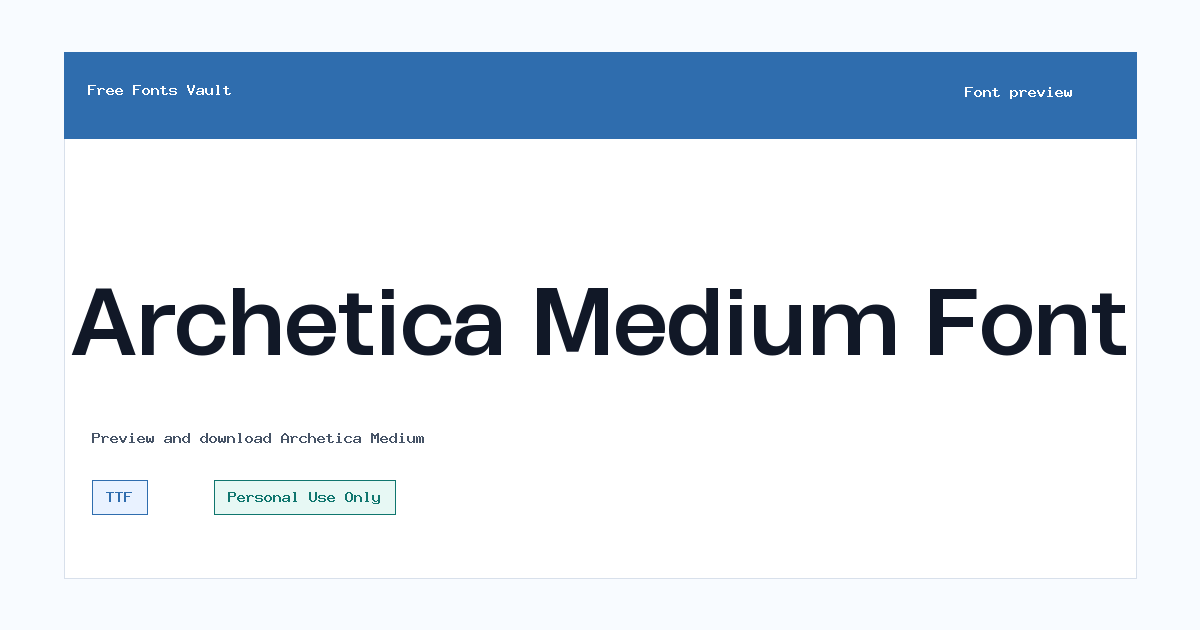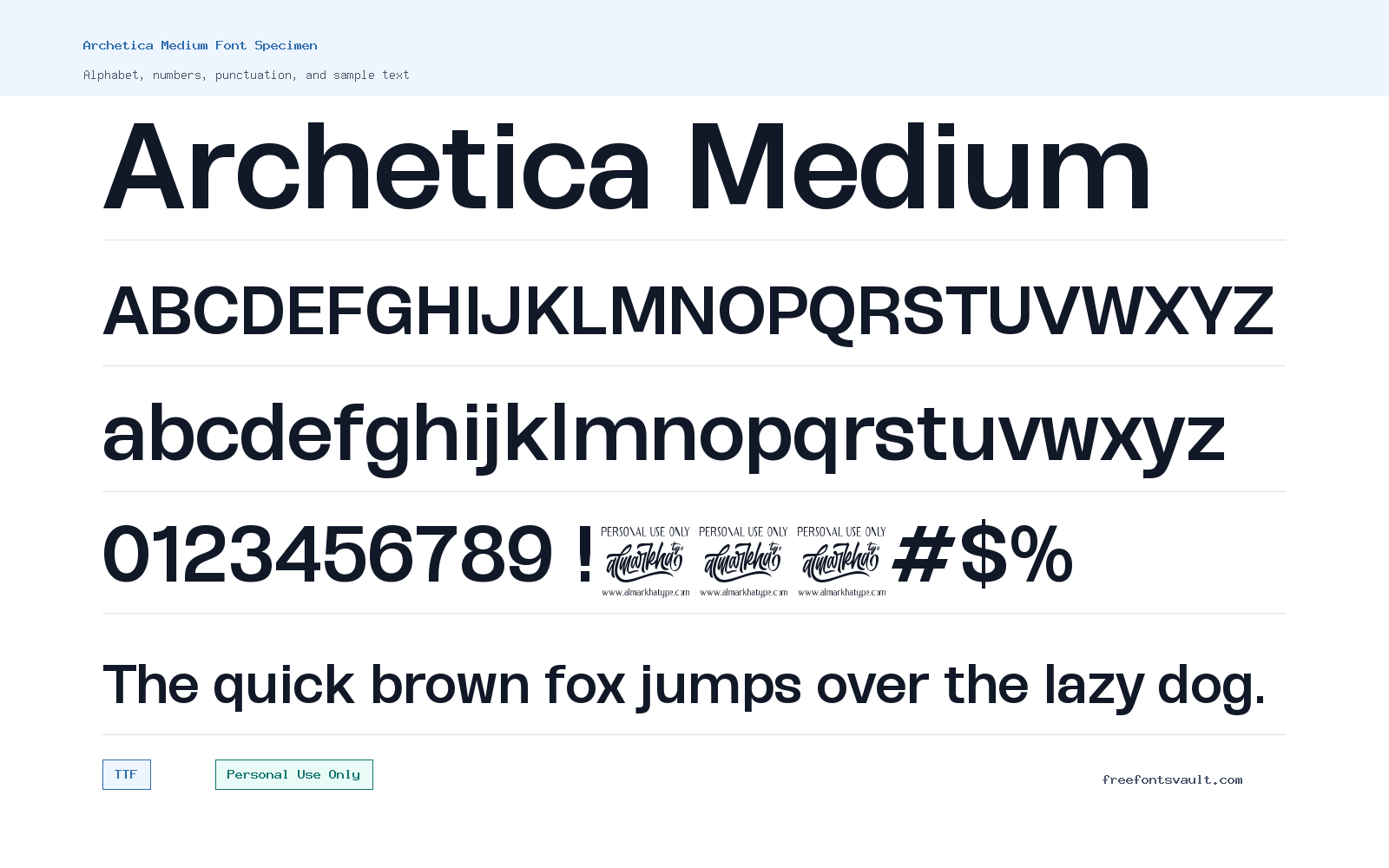
Archetica Medium
- Designer Ridwan Fadilah & Malik Wisnu
- Foundry Almarkhatype
Archetica Medium is a clean sans serif font with a balanced 500 weight, making it useful when you want text that feels clear, steady, and a little more substantial than a regular weight.
About Archetica Medium
Archetica Medium sits in the middle-weight range of the Archetica Sans Serif Font Family. The 500 weight gives letters more presence than a light or regular style without becoming heavy or loud. That makes it a practical choice for headings, short blocks of display text, brand mockups, poster lines, social graphics, and clean layout experiments. Because the font is identified as a sans serif, it works best where a simple, modern text style is needed rather than an ornate or decorative look.
Use Archetica Medium when you want a straightforward voice in a design. It can help a title feel firm without overpowering the rest of the page, and it can work well in web mockups where navigation labels, hero text, buttons, or section headings need consistent weight. For logo work, test it with short names first and adjust spacing carefully; a medium sans serif often benefits from small tracking changes depending on the word shape. For posters and cover images, try it in large sizes with plenty of breathing room. For longer reading text, preview several paragraphs before committing, because a medium weight can feel dense if used too broadly.
Pairing Archetica Medium is mostly about contrast. If you use it for headings, consider a lighter sans serif or a readable serif for body copy so the hierarchy is easy to follow. If you use it for labels or buttons, pair it with a more expressive display font only in the main headline. Avoid stacking too many strong sans serif styles together, especially if their letter shapes are similar, because the result can look undecided rather than intentional. A simple pairing plan usually works best: Archetica Medium for emphasis, another calmer face for long text.
- Medium 500 weight for stronger headings, labels, and short display text
- Sans serif style suited to clean layouts, brand mockups, posters, and web previews
- Good candidate for testing logo concepts and simple editorial graphics
- Works best when paired with a lighter text face or a contrasting serif for longer copy
- Personal logo concepts and brand mockups
- Poster titles, cover graphics, and social media artwork
- Website hero headings, navigation labels, and button text in mockups
- Clean presentation slides and short editorial layouts
- Typography experiments where a medium-weight sans serif is needed
Archetica Medium is credited to Ridwan Fadilah & Malik Wisnu, with Almarkhatype listed as the foundry.
Preview Archetica Medium at the exact size you plan to use. It should be especially useful for short text, headings, and interface-style labels. For long paragraphs, test readability first and consider pairing it with a lighter or more text-focused font.
What kind of font is Archetica Medium?
Archetica Medium is a sans serif font in a medium 500 weight. It is best suited to clean headings, short display text, mockups, and personal design work.
Can I use Archetica Medium for a logo?
What fonts pair well with Archetica Medium?
Try pairing it with a lighter sans serif for body text or a readable serif for contrast. Keep the pairing simple so the medium weight has a clear role in the layout.